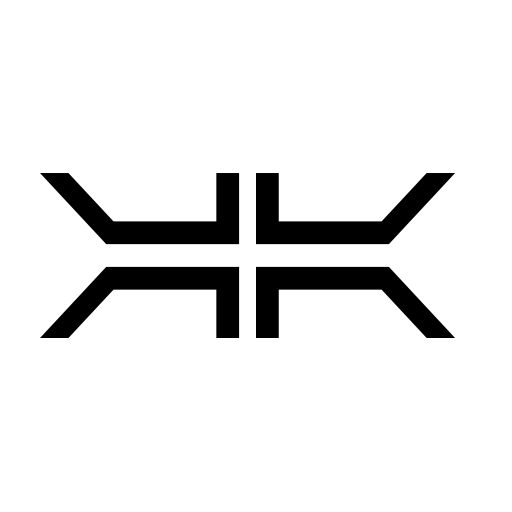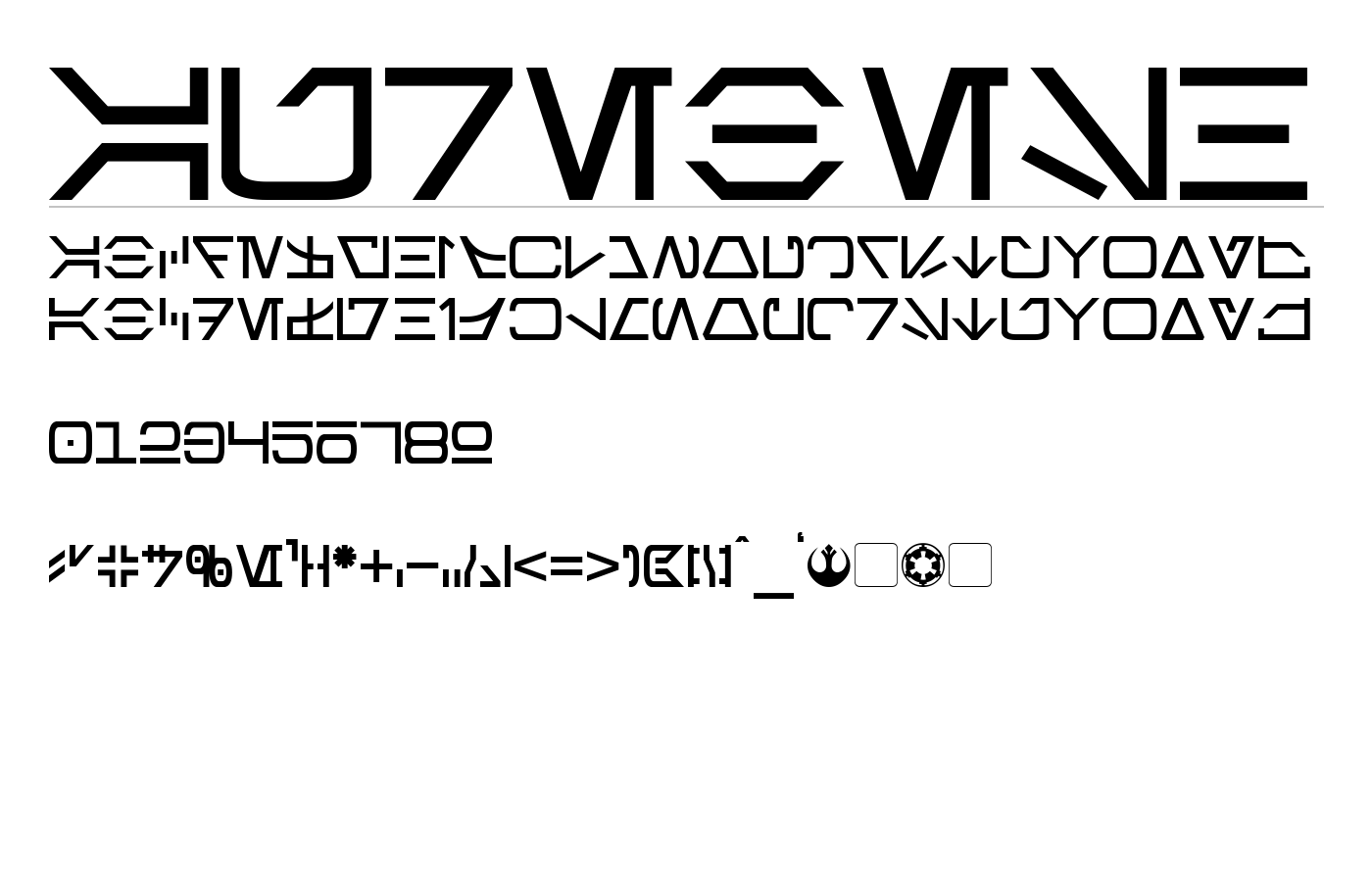
Aurebesh is a futuristic, geometric sans serif font inspired by sci-fi themes, featuring sharp angles and clean, bold strokes with consistent weight and high legibility. Its unique letterforms, which include stylized symbols and shapes, convey a strong, tech-driven personality perfect for gaming, sci-fi branding, or digital media. This font works best in logos, headlines, and creative projects needing a modern, space-age aesthetic.
Aurebesh Font
About Aurebesh Font
| Font family | Aurebesh Font |
| Designer | Neale Davidson |